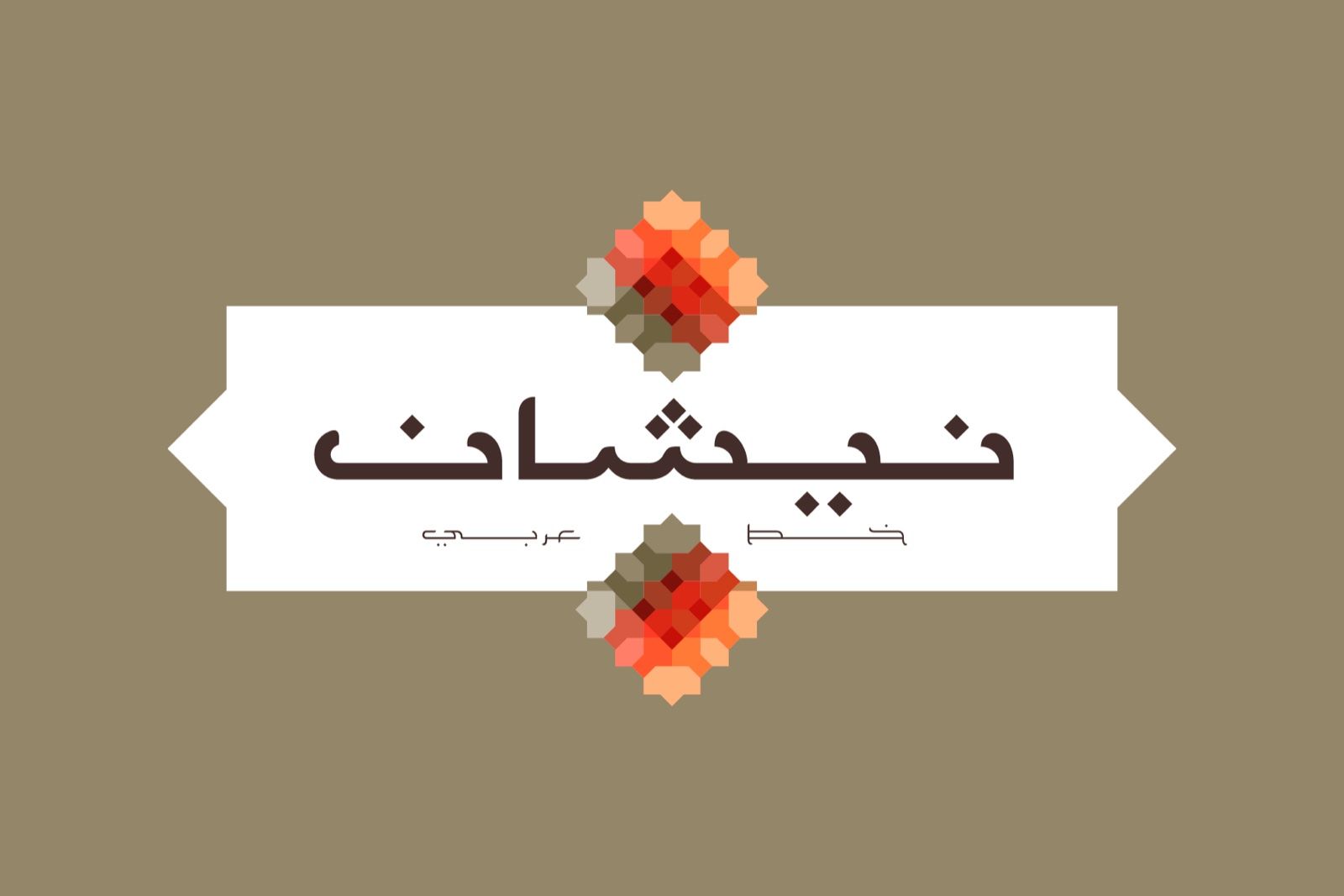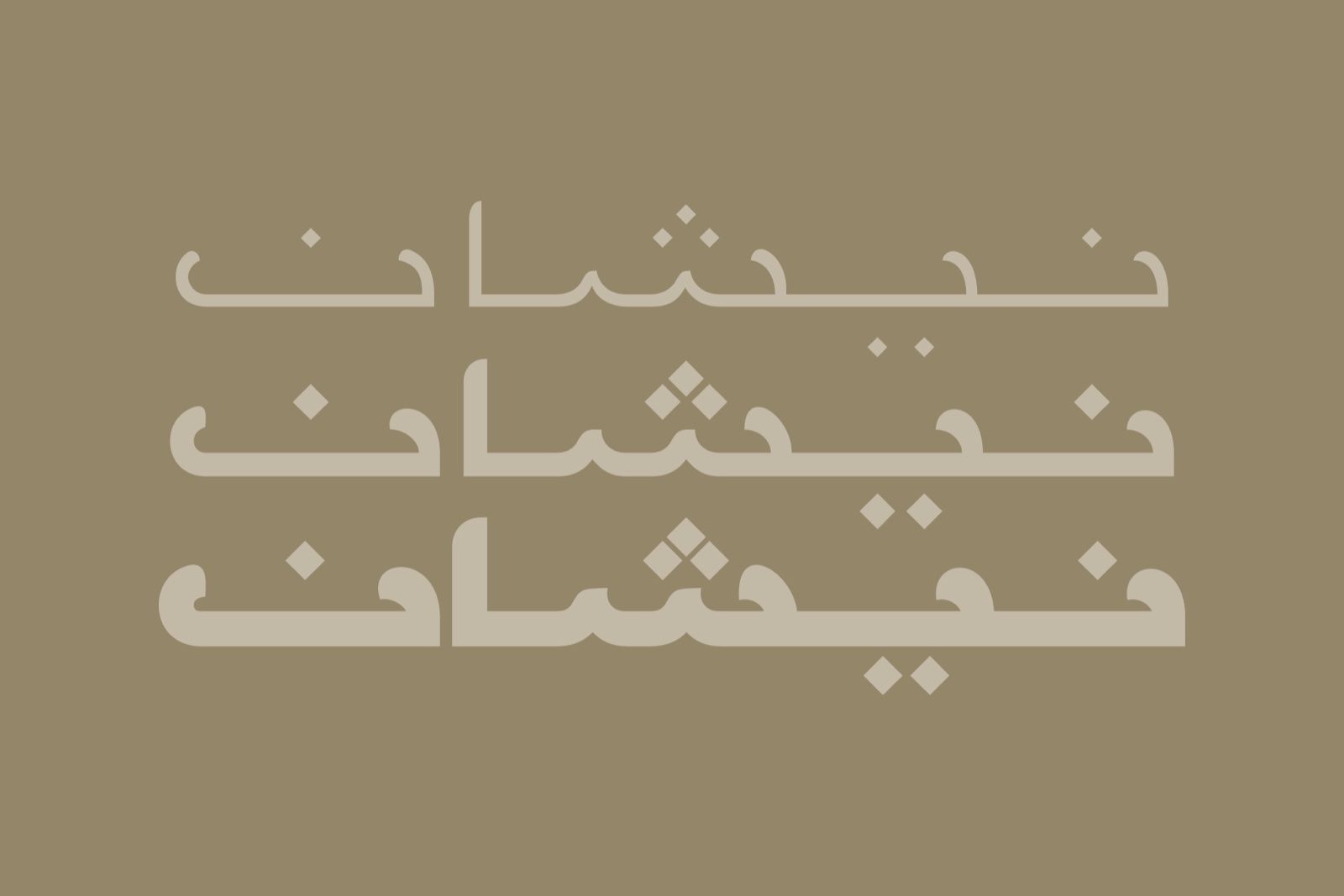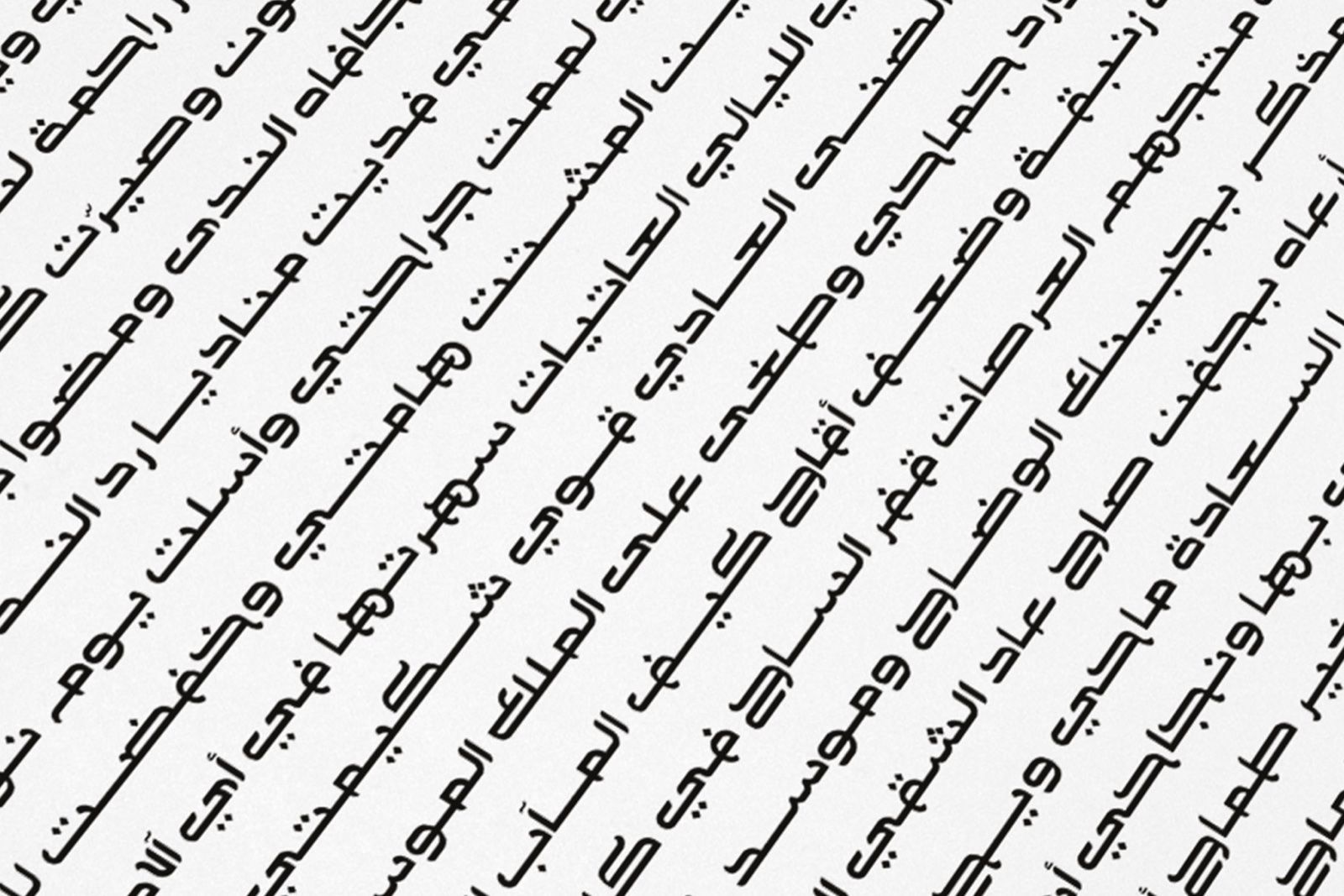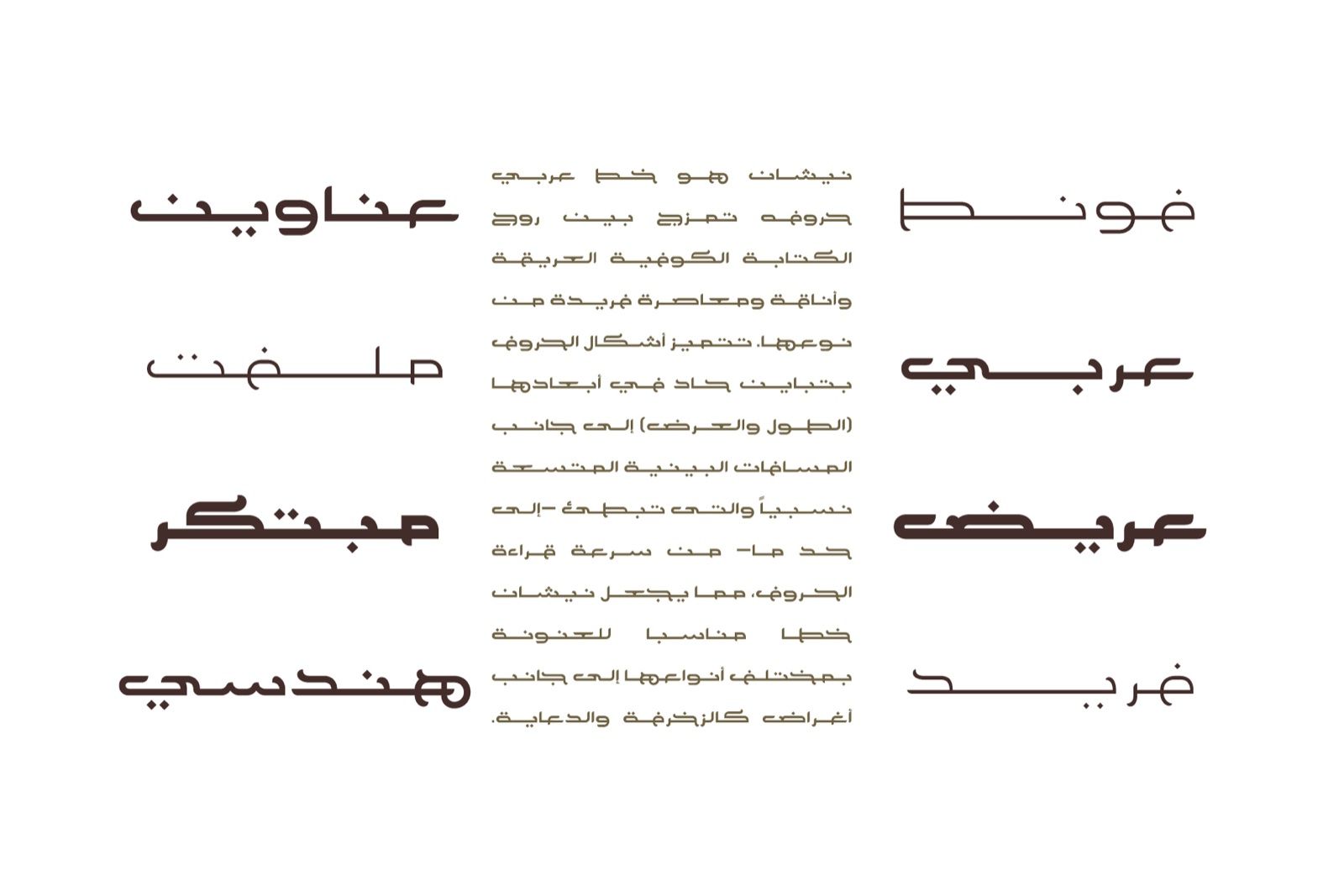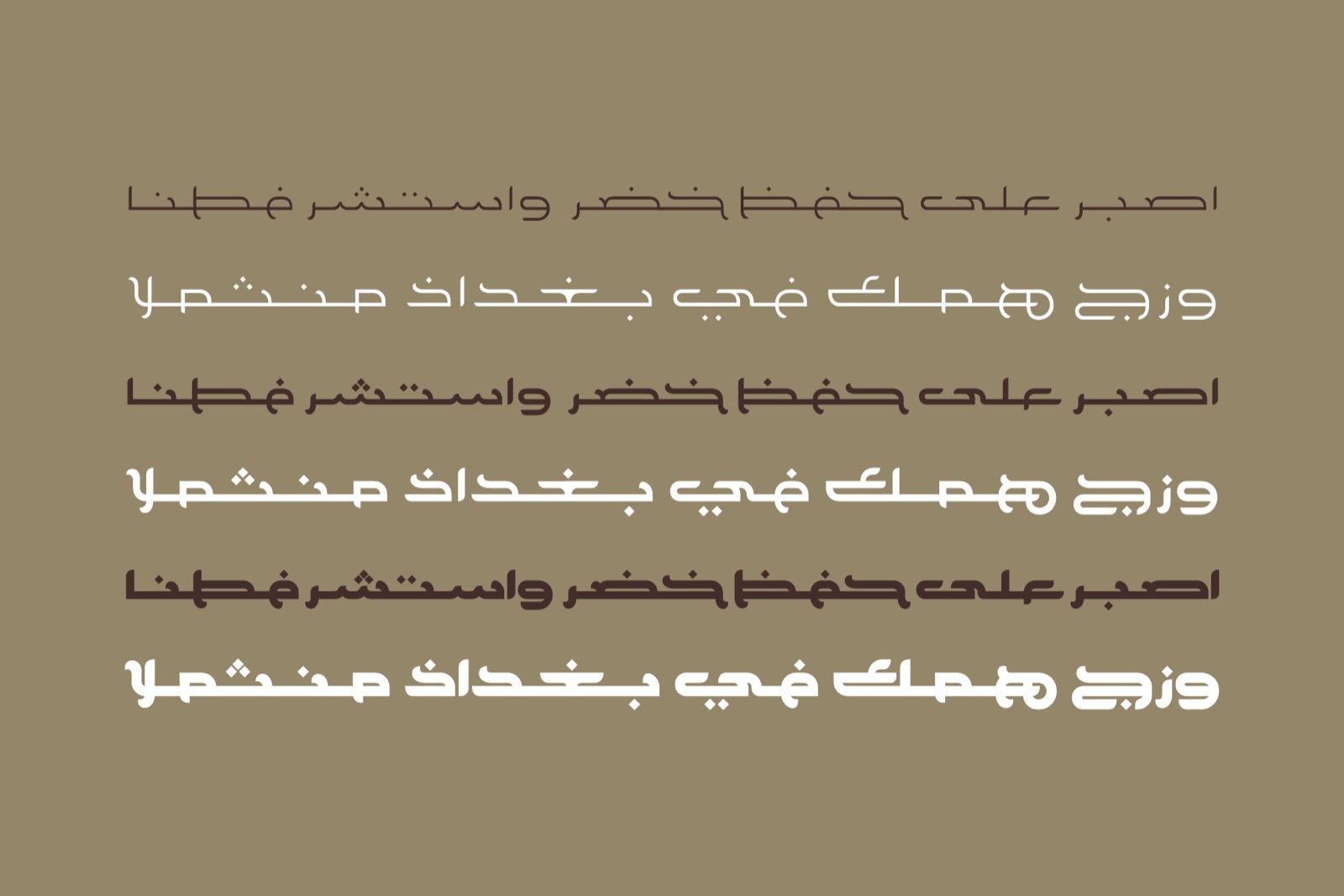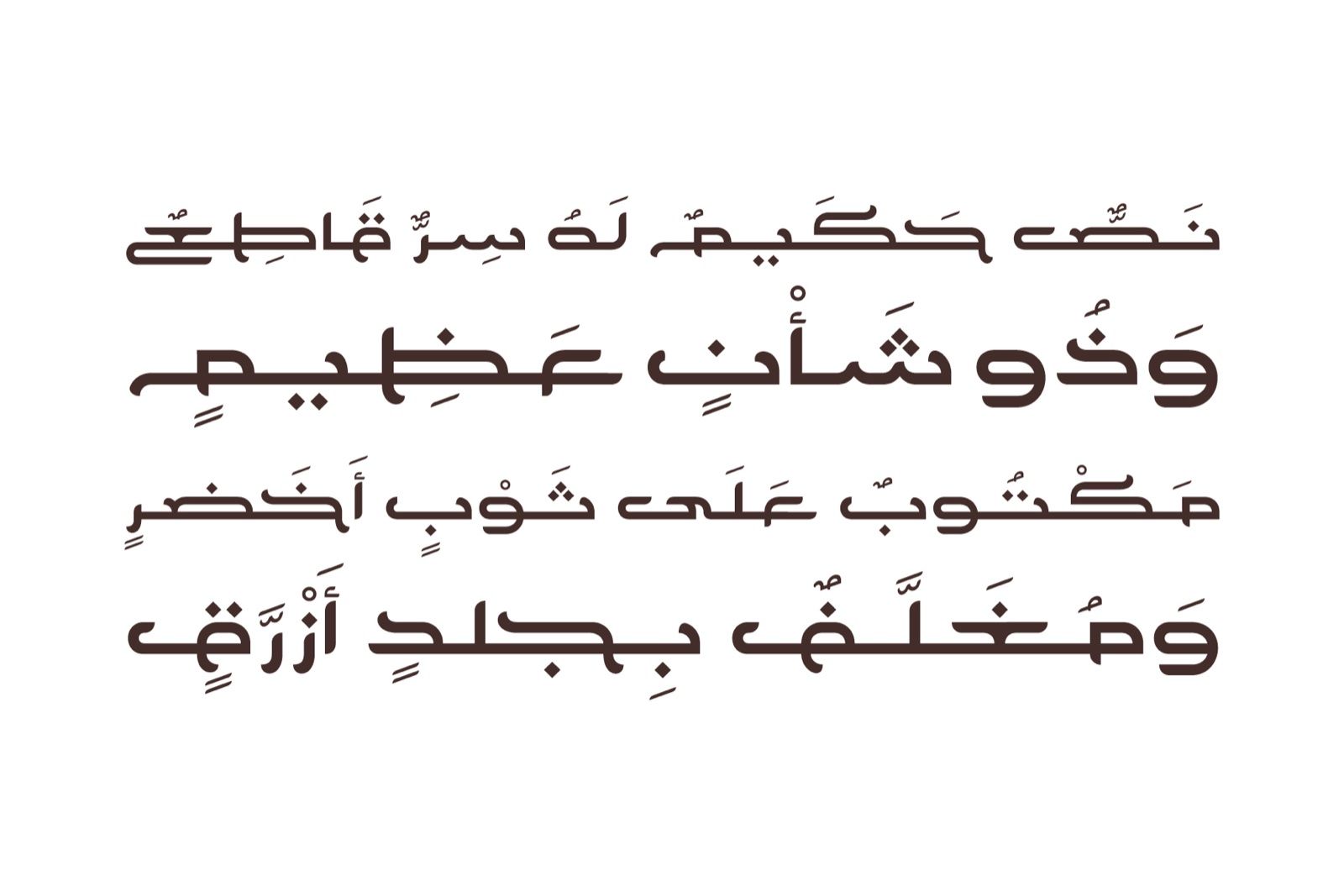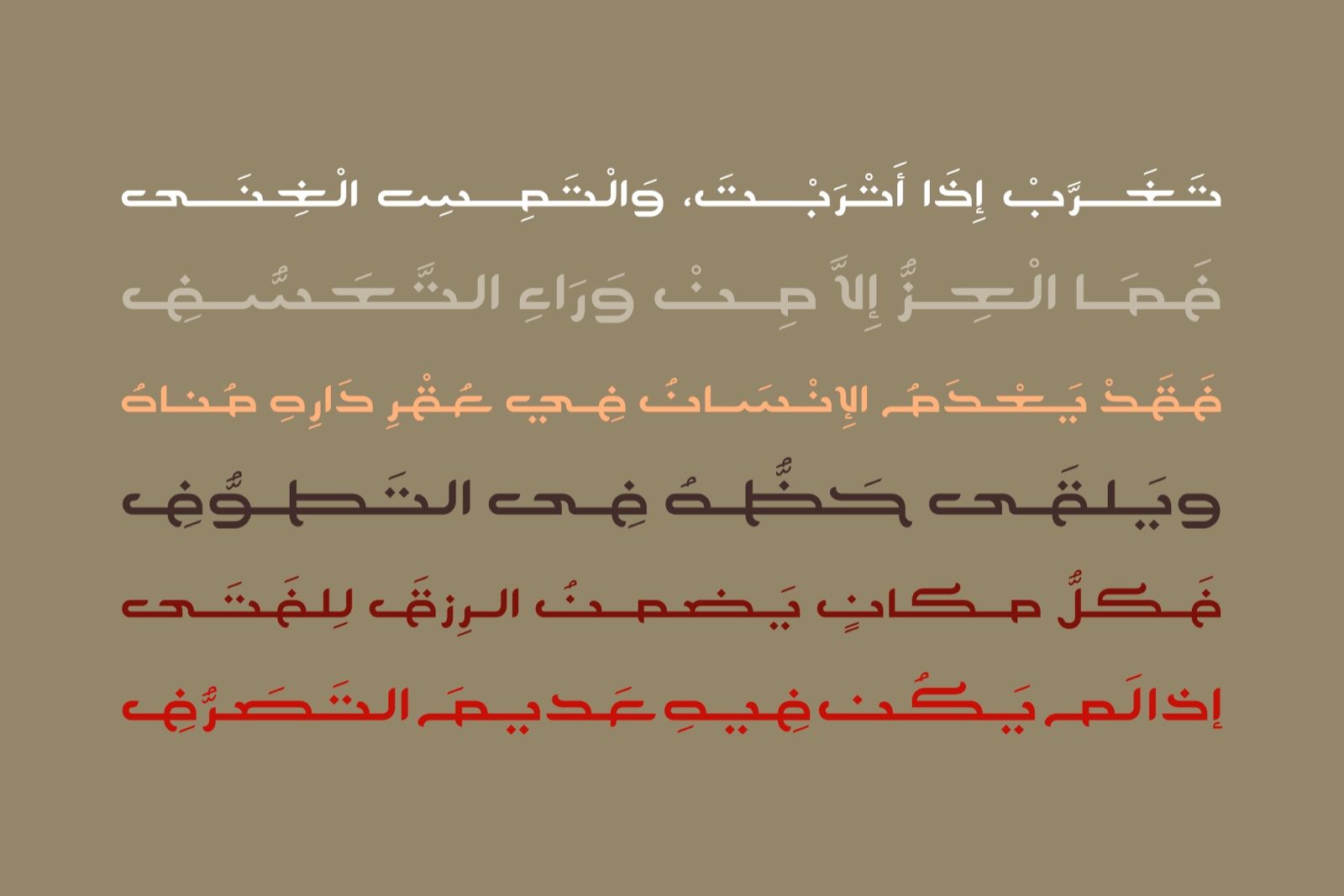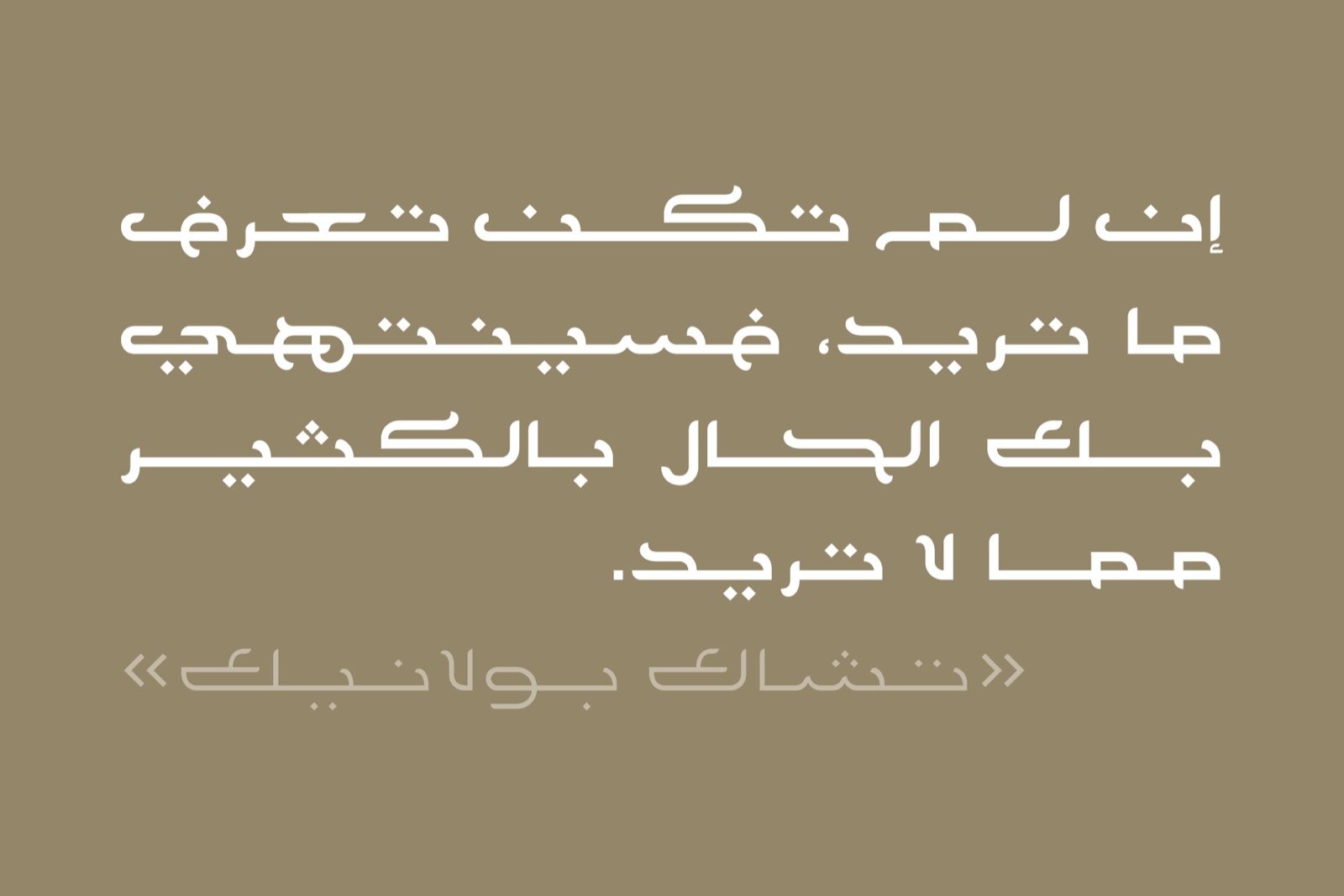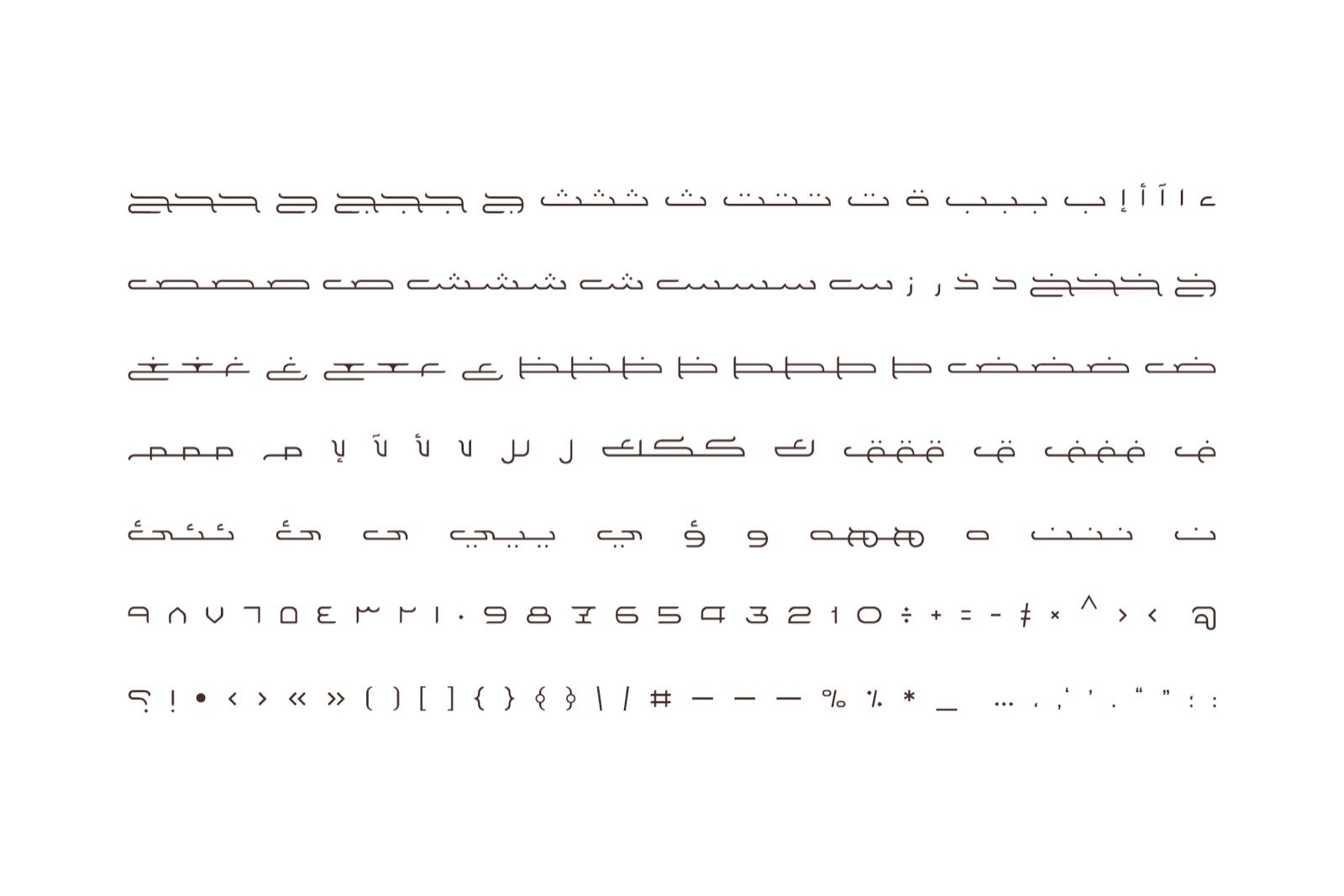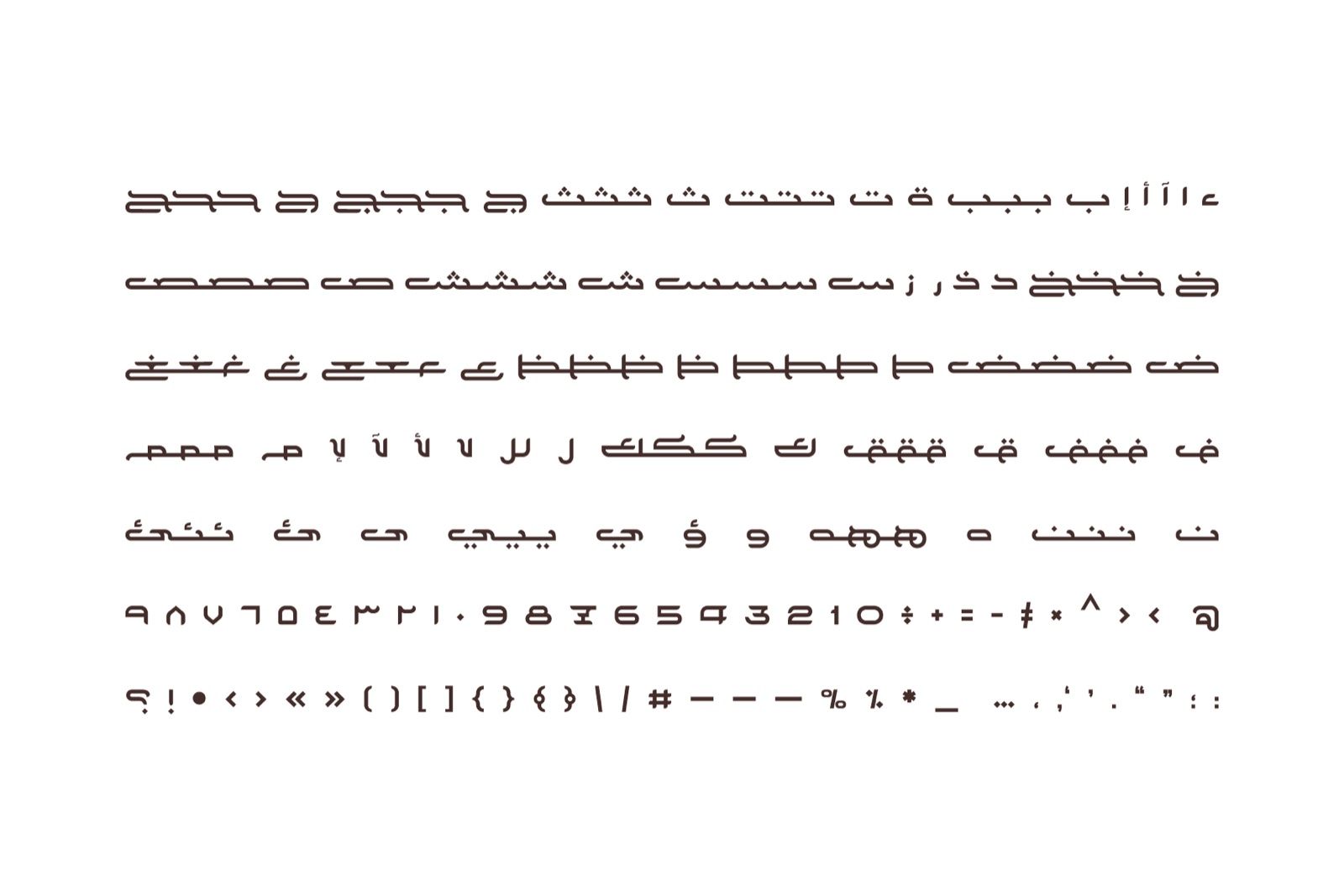
Nishan is a distinctive typeface that fuses the essence of ancient Kufic scripts with the refinement of modern Arabic typography. Its letterforms feature a striking contrast between length and width, while the relatively wide spacing, makes Nishan especially well-suited for creative and expressive design. The typeface is available in three weights (Light, Regular, and Bold) and is compatible with Windows, Mac, and mobile applications.